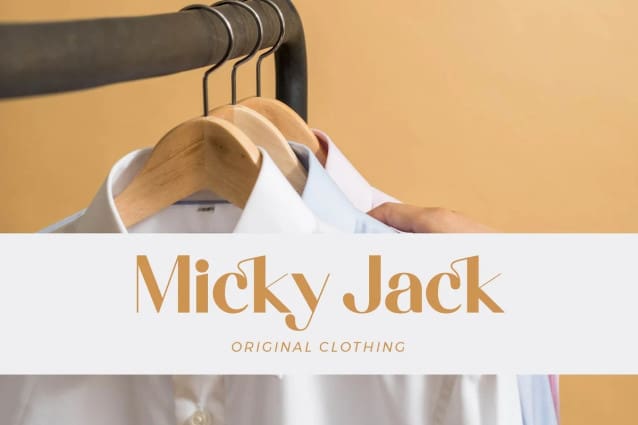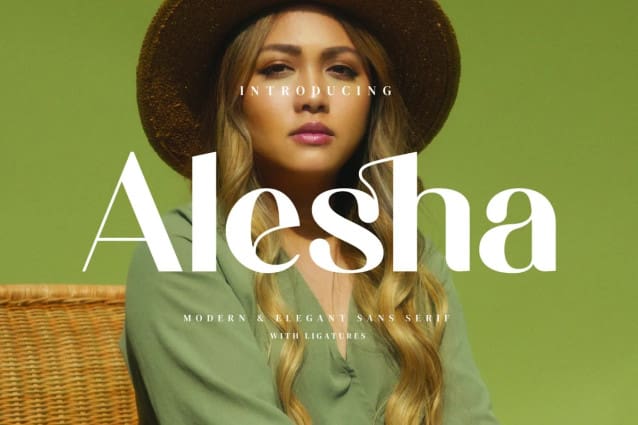
Alesha Sans Font
Alesha Sans Font, inspired by the famous minimalist logo perfect for the purposes of designing templates, brochures, videos, advertising branding, logos, invitation, layout design, elegant crafting, beauty design and other.